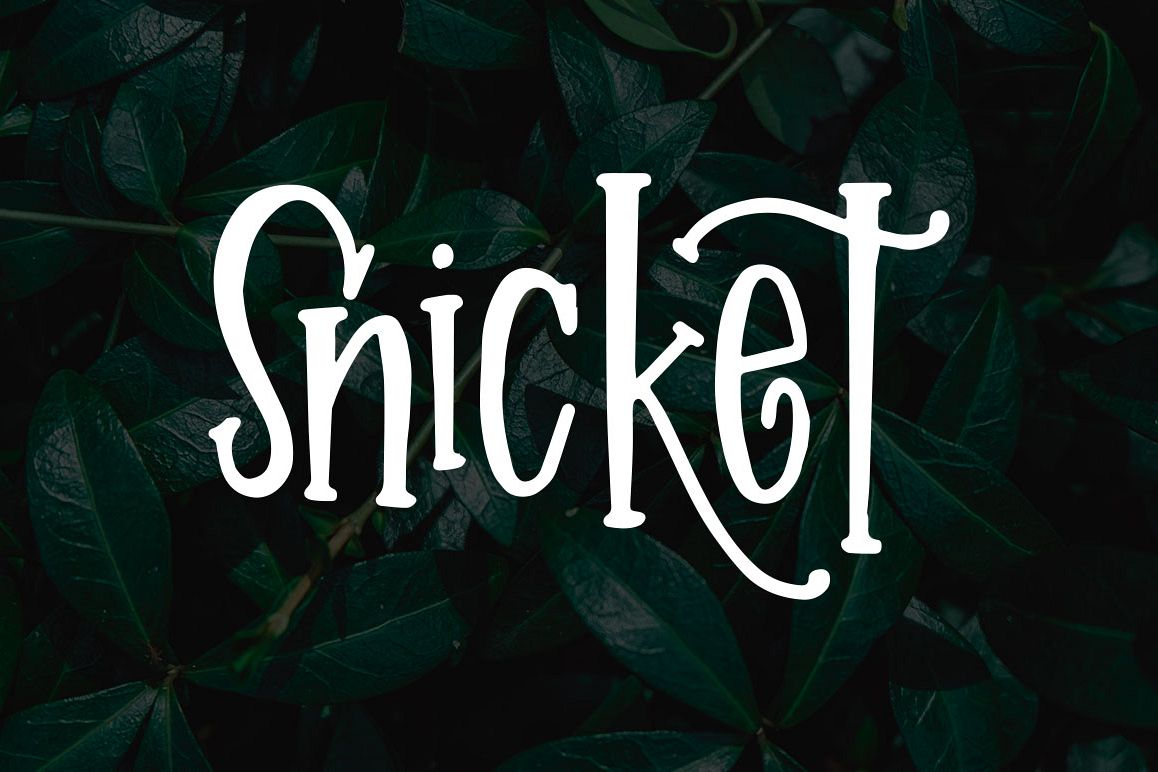
Snicket
Meet Snicket! A fun and quirky hand drawn typeface perfect for your current project! Includes accents, uppers, lowers, numbers, punctuation and the letters fit together seamlessly!
Super cute font! I loved it for halloween projects and I think it will be cute for Christmas as well.. but really a cute font in general!